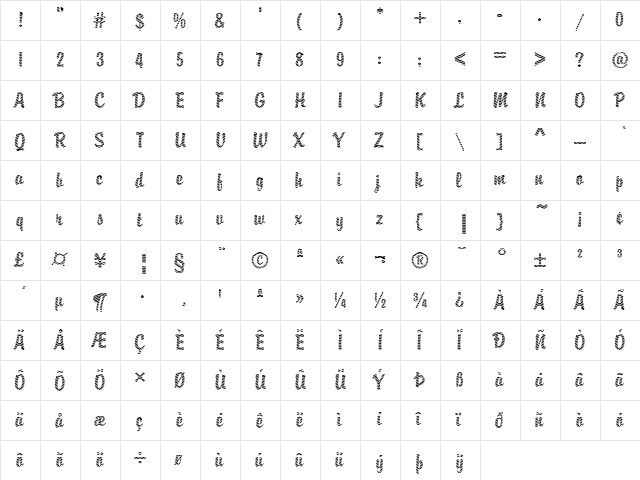
DTC Brody M05 Regular
Design Context for DTC Brody M05 Typeface
DTC Brody M05 is a composed and adaptable typeface that performs quietly and consistently across a wide range of design contexts.